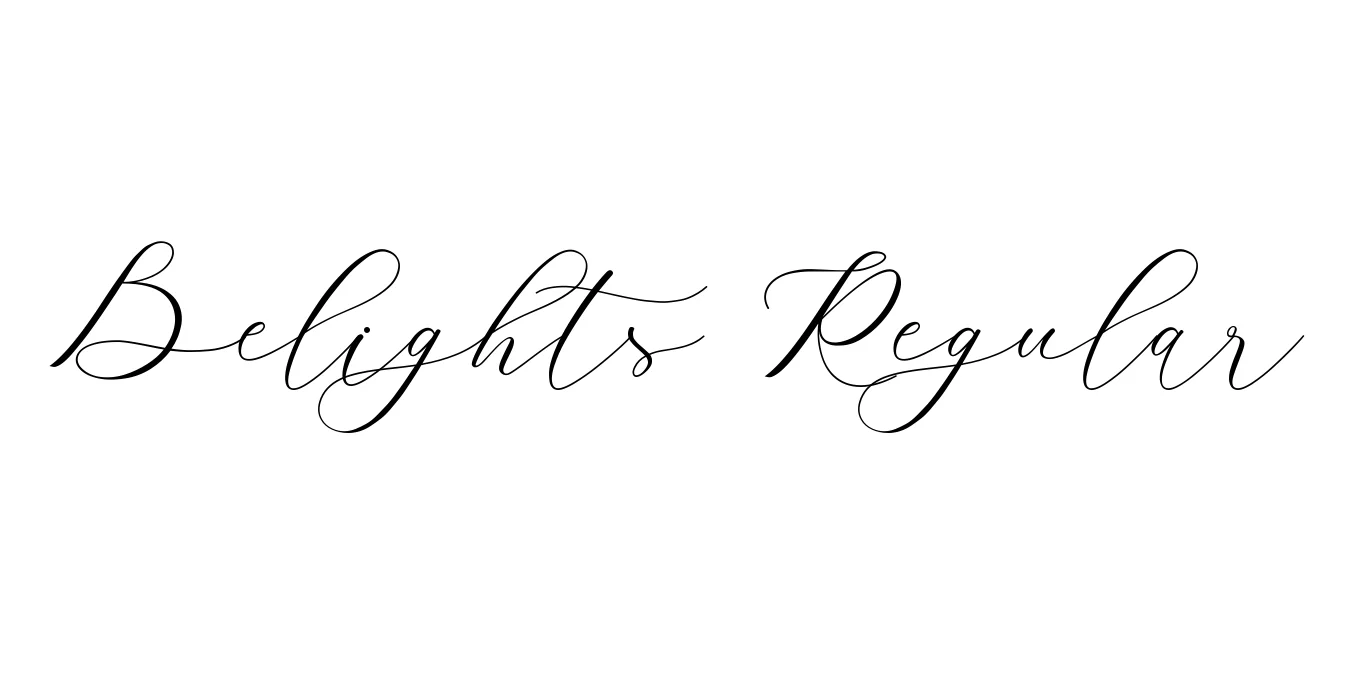
Belights Regular
Designed by Sronstudio
Belights Regular is a sophisticated and elegant handwritten script font designed to capture the essence of natural penmanship. Developed by Sronstudio, this typeface features flowing strokes and a refined silhouette that brings an authentic signature feel to digital and print media. Its balanced weight and graceful curves make it a versatile choice for designers aiming to add a touch of personality and high-end aesthetics to their creative projects.
The font is particularly effective when used for luxury branding and professional stationery, offering a unique blend of modern style and classic calligraphy. With its comprehensive set of characters and smooth transitions, Belights Regular ensures legibility while maintaining a distinct artistic flair. It has become a popular choice for creative professionals in the fashion, beauty, and lifestyle industries who require a font that feels both intimate and professional.
Belights Regular Best Uses
Perfect for creating romantic, personal, and high-end event stationery.
Ideal for fashion, beauty, and lifestyle brands seeking a signature-style identity.
Great for creating stylized quotes and organic-looking overlays on Instagram and Pinterest.
Adds a bespoke and premium feel to cosmetics, perfumes, and luxury goods.